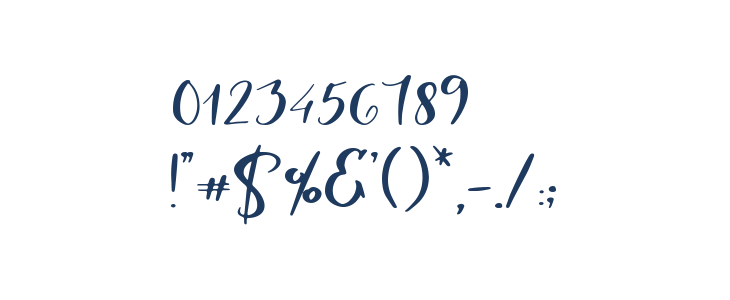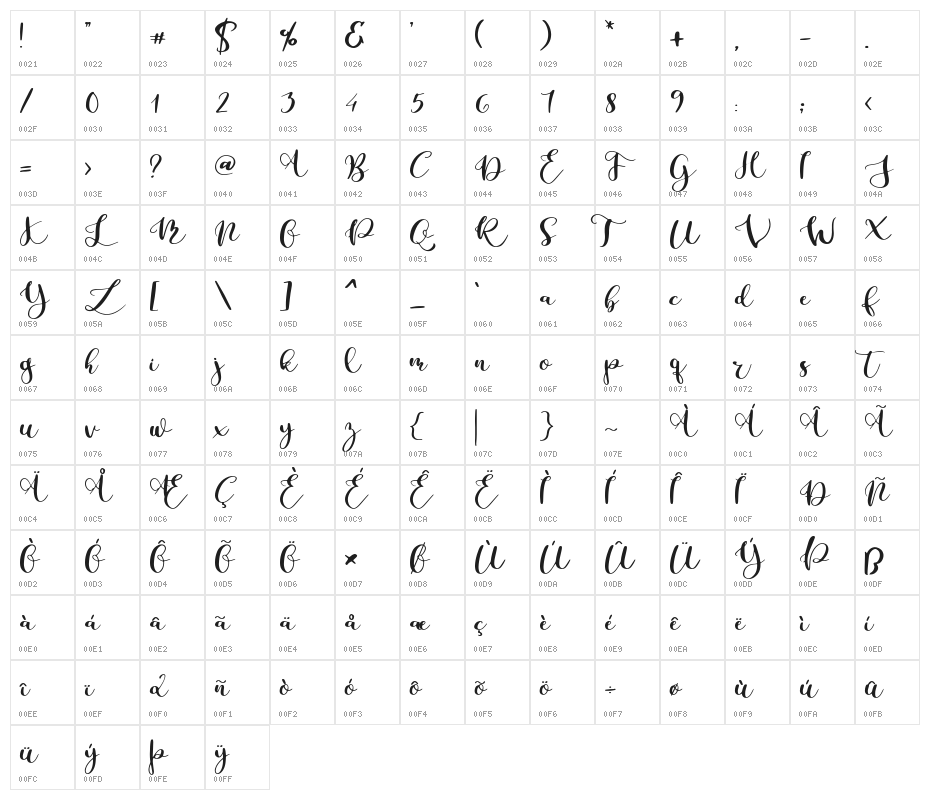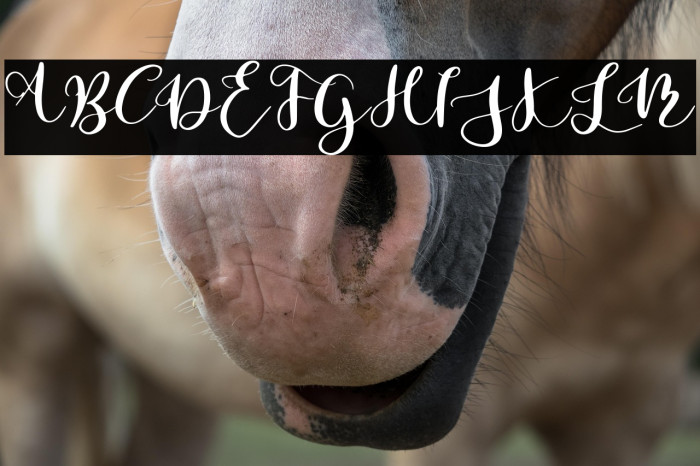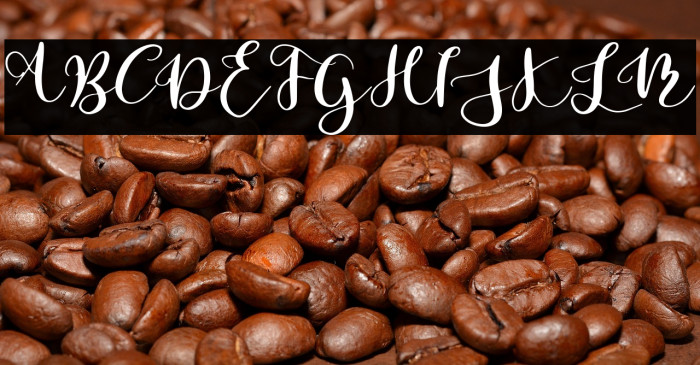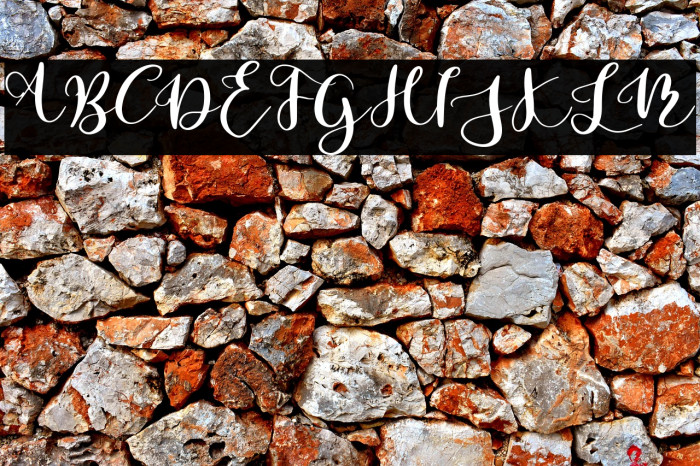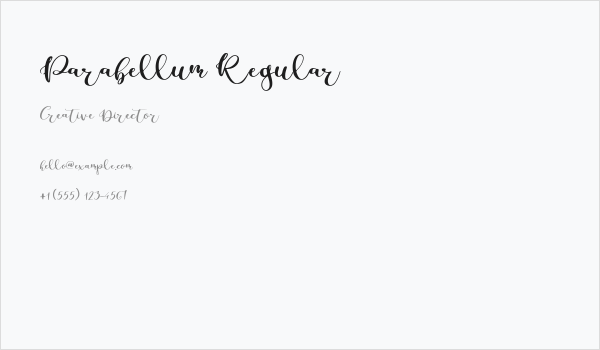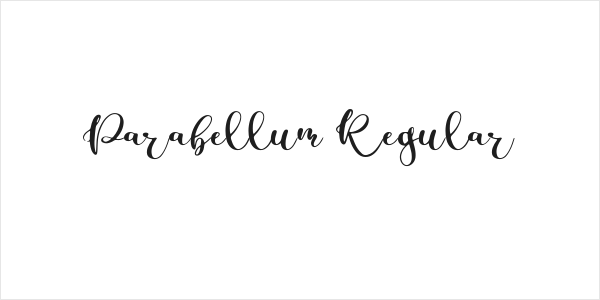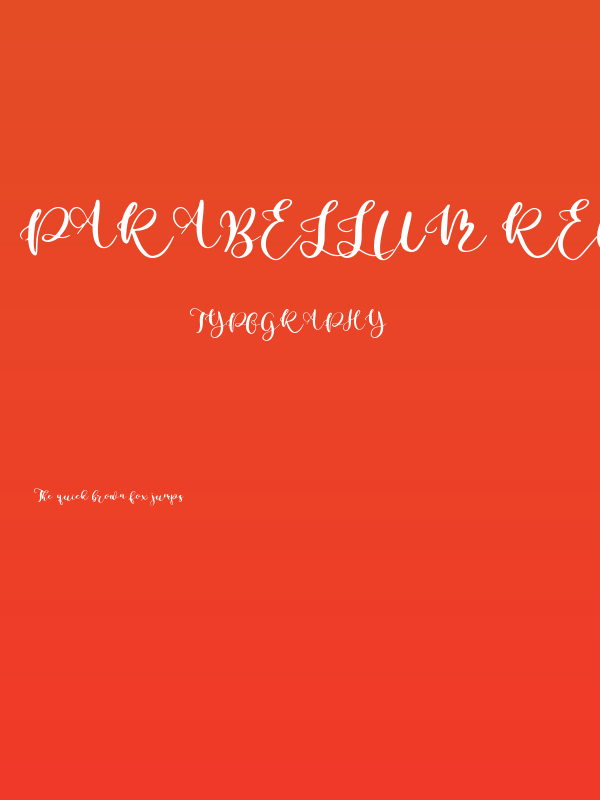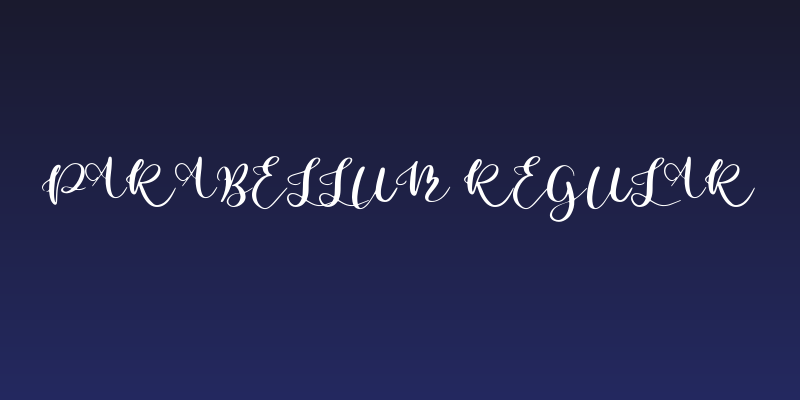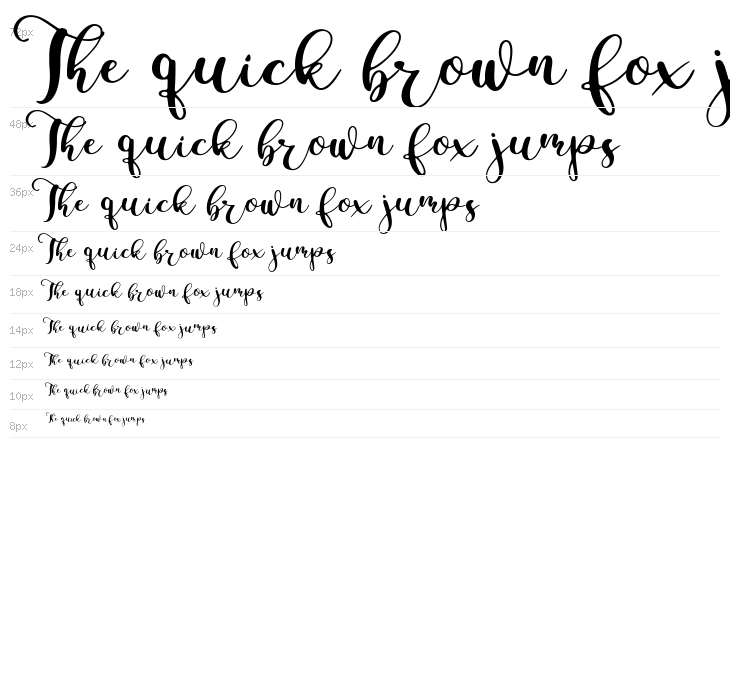
Parabellum Regular Font
Parabellum Regular Description
This font features an elegant and flowing script style, characterized by its smooth, cursive letterforms that exude a sense of sophistication and grace. The uppercase letters are ornate with intricate loops and flourishes, while the lowercase letters maintain a consistent fluidity, enhancing readability. The numerals are designed with a similar flair, ensuring a cohesive look across all characters. Special characters are thoughtfully crafted to match the overall aesthetic, making this font versatile for various design needs. The strokes vary in thickness, providing a dynamic contrast that adds to its visual appeal.